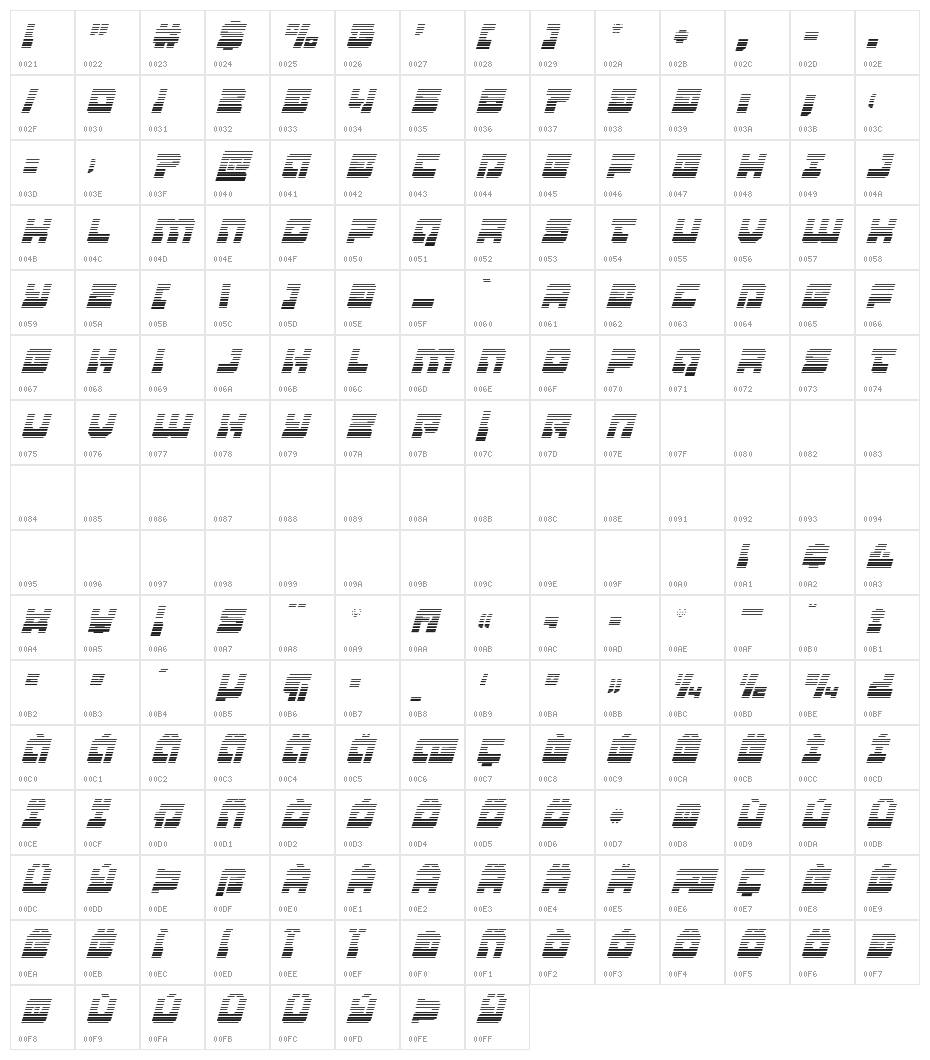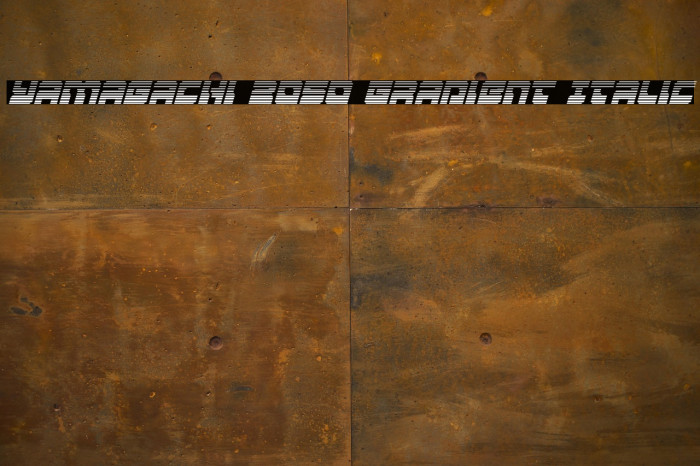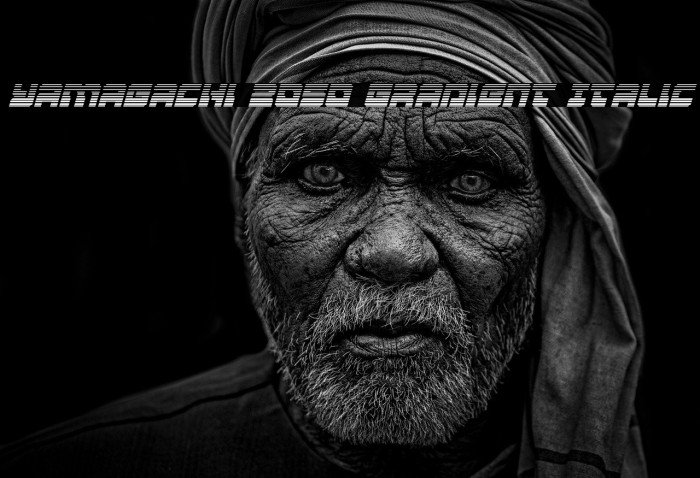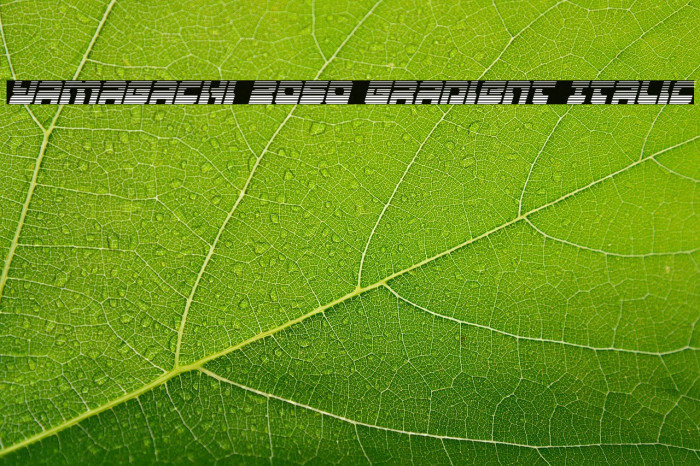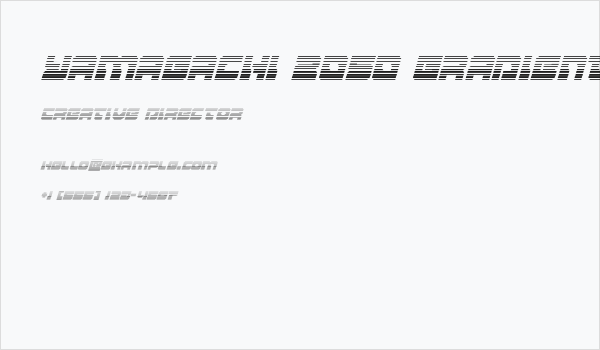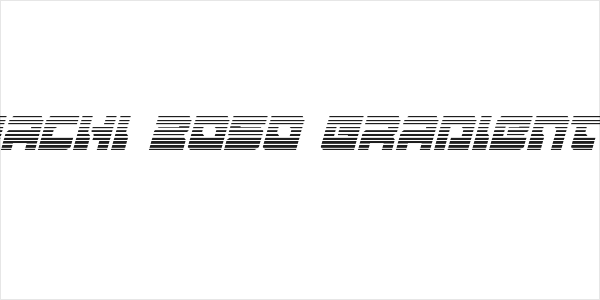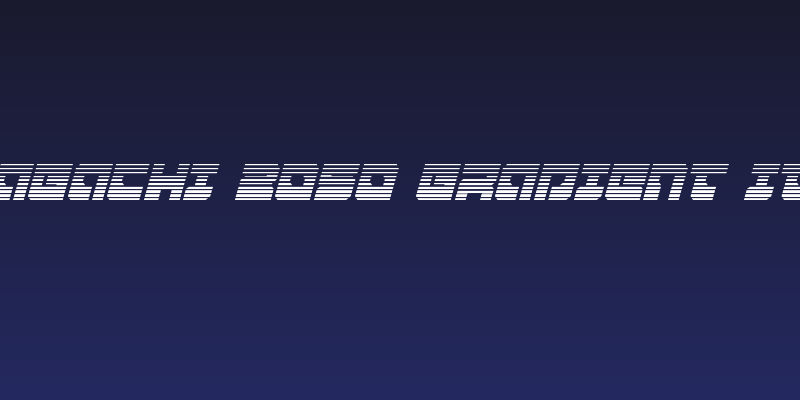
Yamagachi 2050 Gradient Italic Font
Yamagachi 2050 Gradient Italic Description
This futuristic font features a unique gradient effect with horizontal lines creating a sense of motion and depth. The characters are italicized, adding a dynamic and forward-leaning appearance. The style is bold and striking, with each letter composed of segmented lines that give it a digital, high-tech feel. The uppercase and lowercase letters maintain consistency in design, while the numbers and special characters complement the overall aesthetic. This font is ideal for projects that require a modern, cutting-edge look, such as technology branding, sci-fi themes, or digital art.